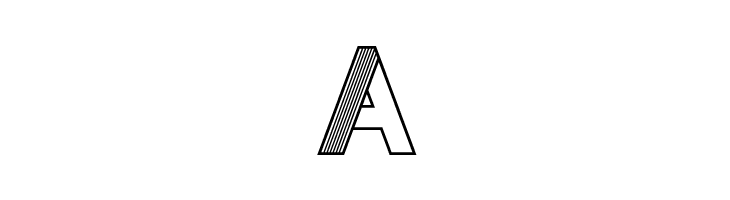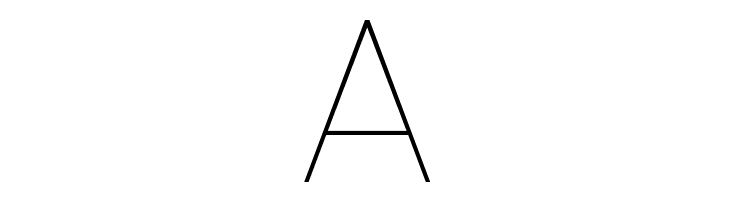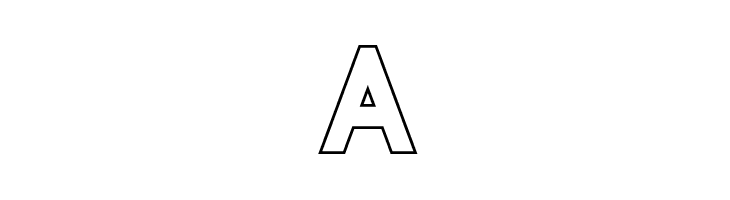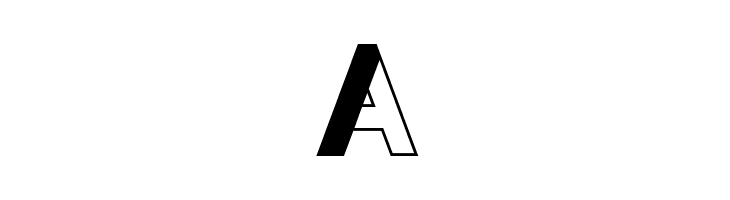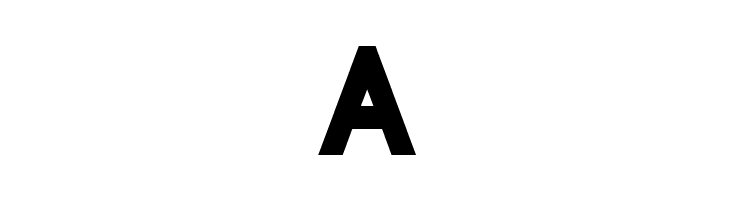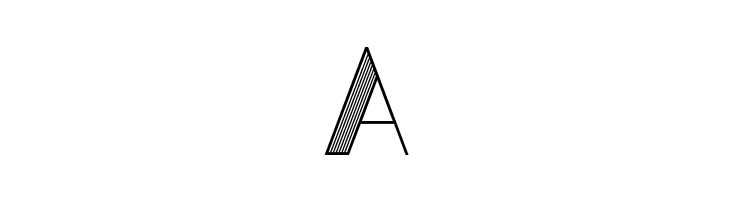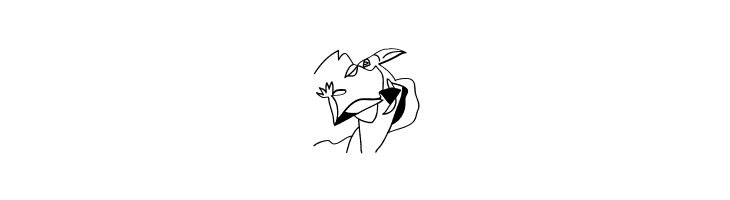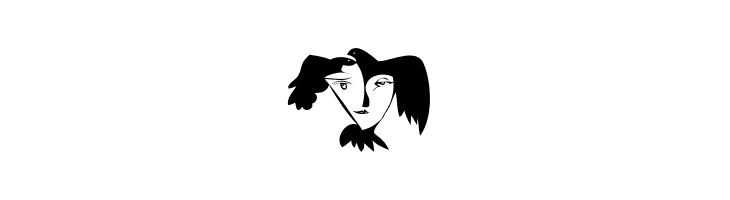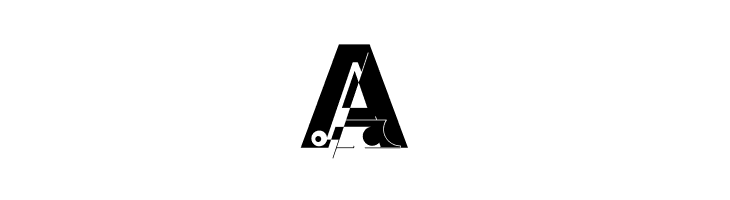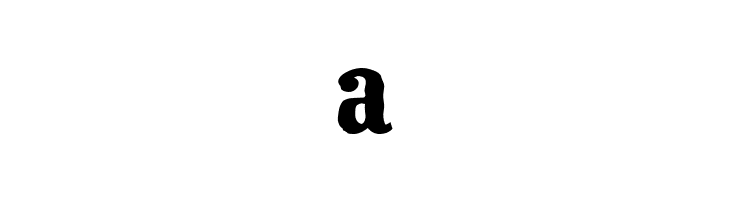
A modern, artistic font with flowing curves and dynamic style.
A decorative font with each character represented by a stylized face.
An artistic and decorative font with abstract illustrations inspired by Picasso.
A collection of artistic illustrations representing characters, not a traditional font.
A bold, industrial font with geometric and mechanical elements.
An artistic font with abstract, Picasso-inspired face designs for each character.
A bold slab serif font with strong, consistent strokes and a classic aesthetic.
A bold, three-dimensional font with a modern, geometric style.
A playful, arcade-inspired font with bold, geometric letters and retro gaming elements.
A bold, playful font inspired by classic arcade games with geometric shapes.
A flowing, cursive script font with elegant loops and swashes.
A bold, split-effect decorative font ideal for striking headlines.
A bold, modern font with distinctive split characters and high contrast.
A bold, geometric font with sharp, angular shapes for a modern look.
A playful, flowing script font with bold, rounded strokes.
A playful, handwritten script font with smooth, interconnected characters.
A sleek, modern font with thin, elongated characters and a minimalist design.
A bold, outlined font with geometric shapes and modern style.
A bold, geometric font with a modern and cohesive design.
A modern, striped font with geometric influences and artistic flair.
A bold, modern font with dual-tone geometric design.
A bold, striped font with a modern and artistic design.
A modern, elegant font with thin, elongated letterforms and a sleek, sophisticated style.
A modern, striped font with a three-dimensional effect, perfect for standout designs.